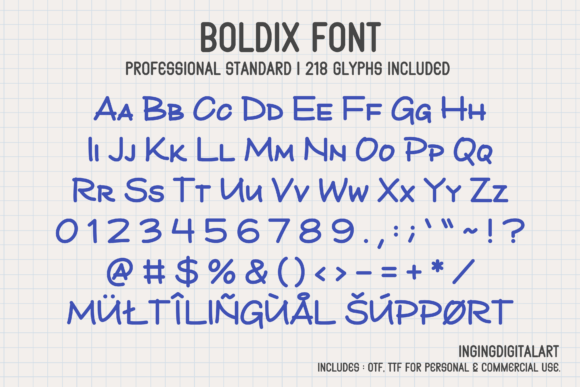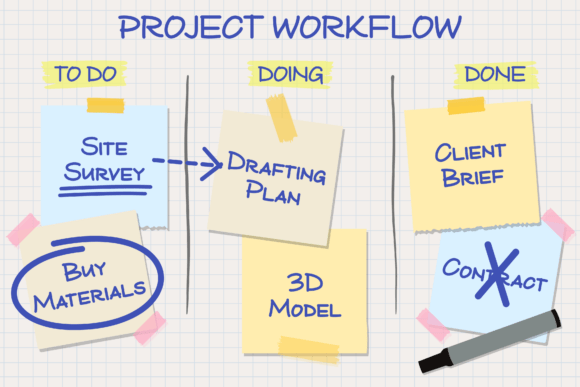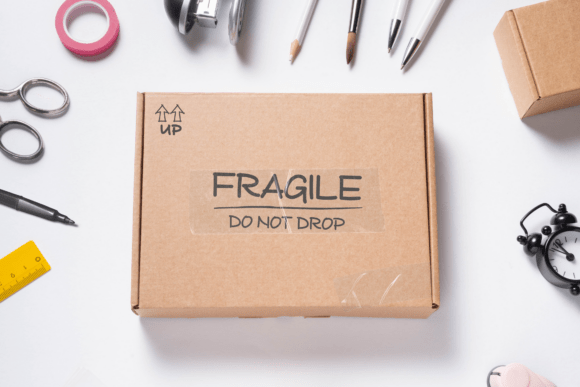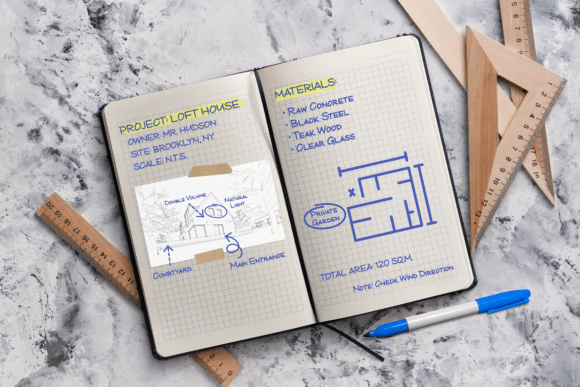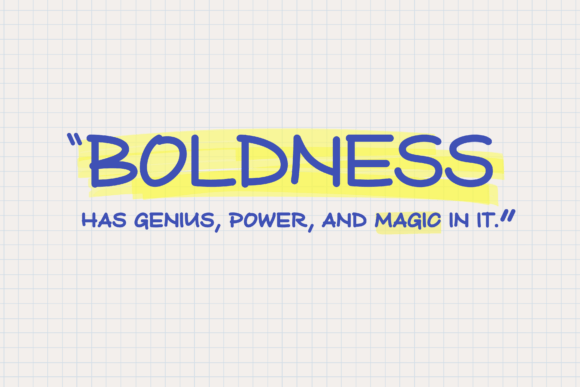
BOLDIX FONT: Unleash the Raw Energy of Design Studio on Your Screen
Are you tired of using the same old fonts that lack personality and edge? Look no further than Boldix, a strong and solid marker font that’s sure to bring the raw energy of a design studio to your screen. With its authentic texture of a real permanent marker, Boldix captures the perfect balance of professional precision and spontaneous creativity, making it an exceptional choice for designers, architects, and crafters.
The Inspiration Behind Boldix
Boldix was created with the intention of emulating the look and feel of a real permanent marker. The font’s bold, ink-heavy strokes and rounded terminals give it a unique, hand-drawn aesthetic that’s reminiscent of architectural sketches and design studio work. Whether you’re working on a new project or looking for a distinctive signature for your brand, Boldix delivers a high-impact, industrial-chic look that’s sure to turn heads.
Perfect for Architectural Presentations and Floor Plan Annotations
Architects and designers know that presenting their work in a clear and visually appealing way is crucial. That’s where Boldix comes in. Its bold, confident strokes make it perfect for annotating floor plans, labeling architectural features, and creating presentations that showcase your work in the best possible light. The font’s rugged, industrial-chic aesthetic also makes it well-suited for outdoor signage and other applications where a durable, long-lasting look is essential.
Creative Studio Branding and Crafting
Boldix is also an excellent choice for creative studio branding and crafting. The font’s unique texture and hand-drawn aesthetic give it a distinctive, one-of-a-kind look that’s sure to help your brand stand out. Whether you’re a graphic designer, illustrator, or crafter, Boldix provides a versatile and adaptable solution for all your branding needs. Use it to create eye-catching logos, business cards, or social media graphics that showcase your personality and style.
Key Features of Boldix
- Authentic texture: Boldix features an authentic texture that mimics the look and feel of a real permanent marker.
- Bold, ink-heavy strokes: The font’s bold, ink-heavy strokes give it a confident, expressive look that’s perfect for making a statement.
- Rounded terminals: The rounded terminals of Boldix add a touch of warmth and personality to the font, making it more approachable and engaging.
- Industrial-chic aesthetic: Boldix has a rugged, industrial-chic aesthetic that’s perfect for outdoor signage, architectural presentations, and other applications where a durable look is essential.
How to Use Boldix in Your Design Projects
- Experiment with colors: Boldix looks great in a variety of colors, from bold and bright to muted and subtle. Experiment with different colors to find the one that works best for your project.
- Use it for emphasis: Boldix is perfect for adding emphasis to your text. Use it to highlight important information or create eye-catching headings.
In conclusion, Boldix is a versatile and adaptable font that’s perfect for designers, architects, and crafters. Its unique texture, bold strokes, and industrial-chic aesthetic make it an exceptional choice for a wide range of applications, from architectural presentations and floor plan annotations to creative studio branding and crafting. With Boldix, you can bring the raw energy of a design studio to your screen and create stunning, high-impact designs that showcase your personality and style.